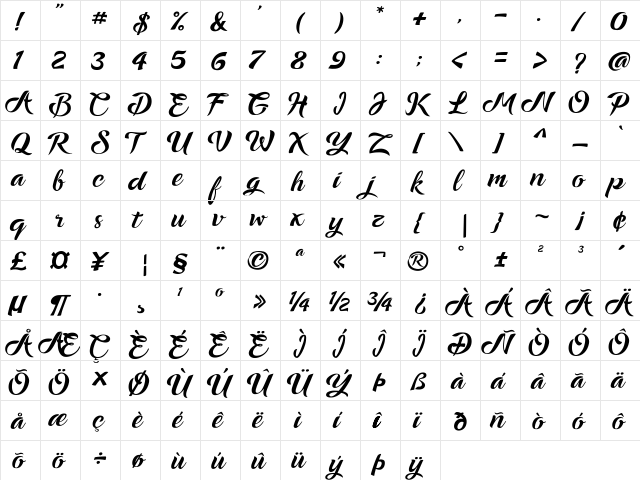
Ampera Regular
Design Context for Ampera Typeface
Ampera is a composed and adaptable typeface that performs quietly and consistently across a wide range of design contexts.